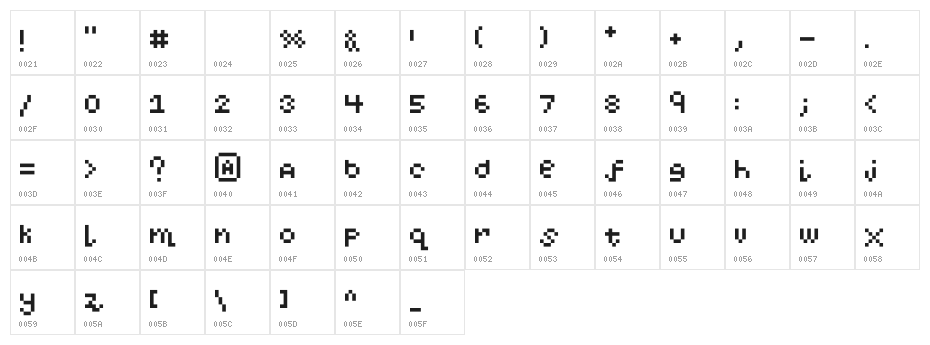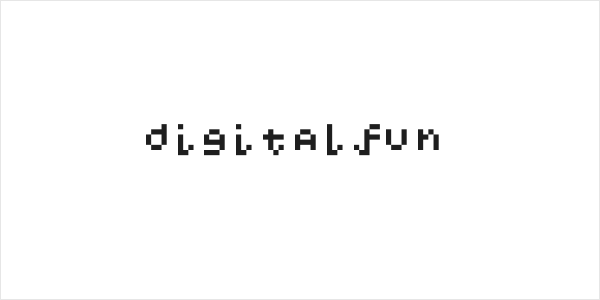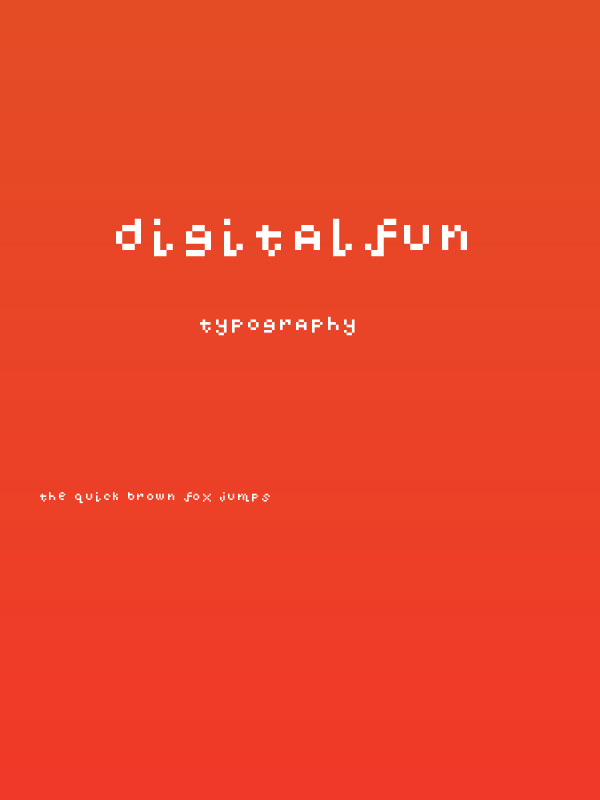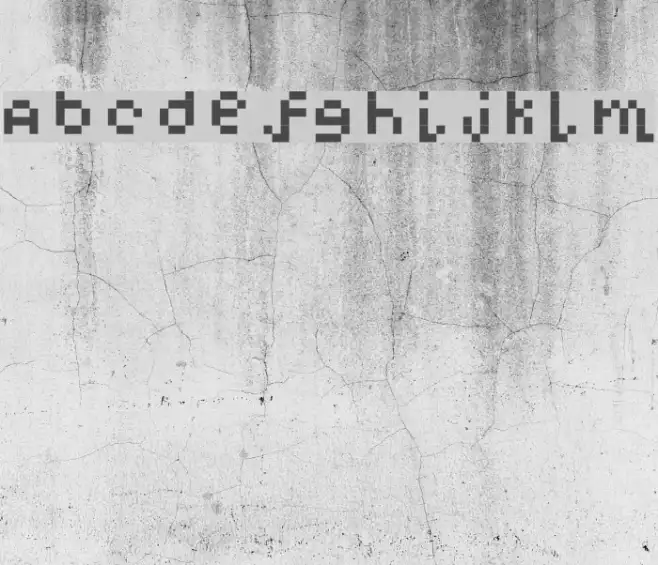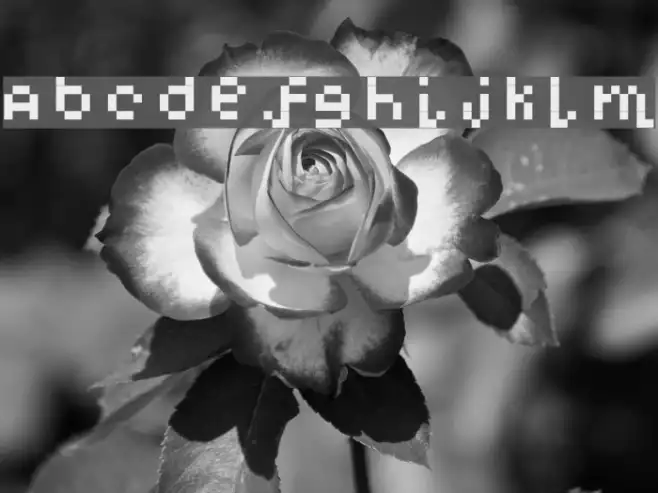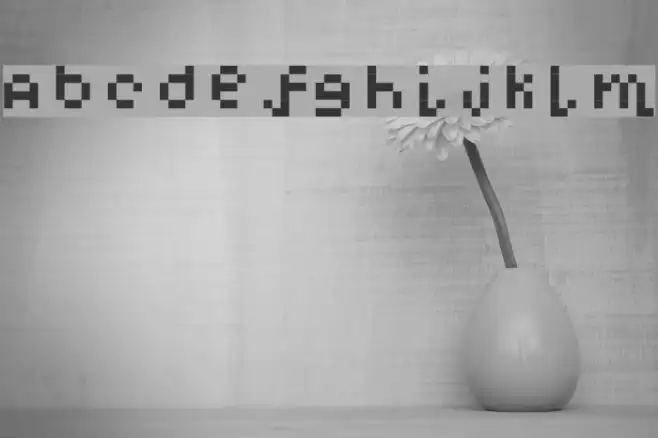
DigitalFun Font
DigitalFun Description
This font features a pixelated, blocky design reminiscent of early digital displays and video games. Each character is constructed with a grid-like pattern, giving it a distinctly retro and digital aesthetic. The uniformity of the pixel size across all characters creates a cohesive and structured appearance. Despite its rigid form, the font maintains legibility, making it suitable for various digital-themed projects. The characters are evenly spaced, contributing to a clean and organized look. This font is ideal for projects that aim to evoke nostalgia for classic arcade games or to convey a tech-savvy, futuristic vibe.
| Use Case | Logos, Headlines, Digital Art |
| Proposed Projects | Ideal for video game designs, tech-themed posters, retro digital art, and any project seeking a nostalgic digital feel. |